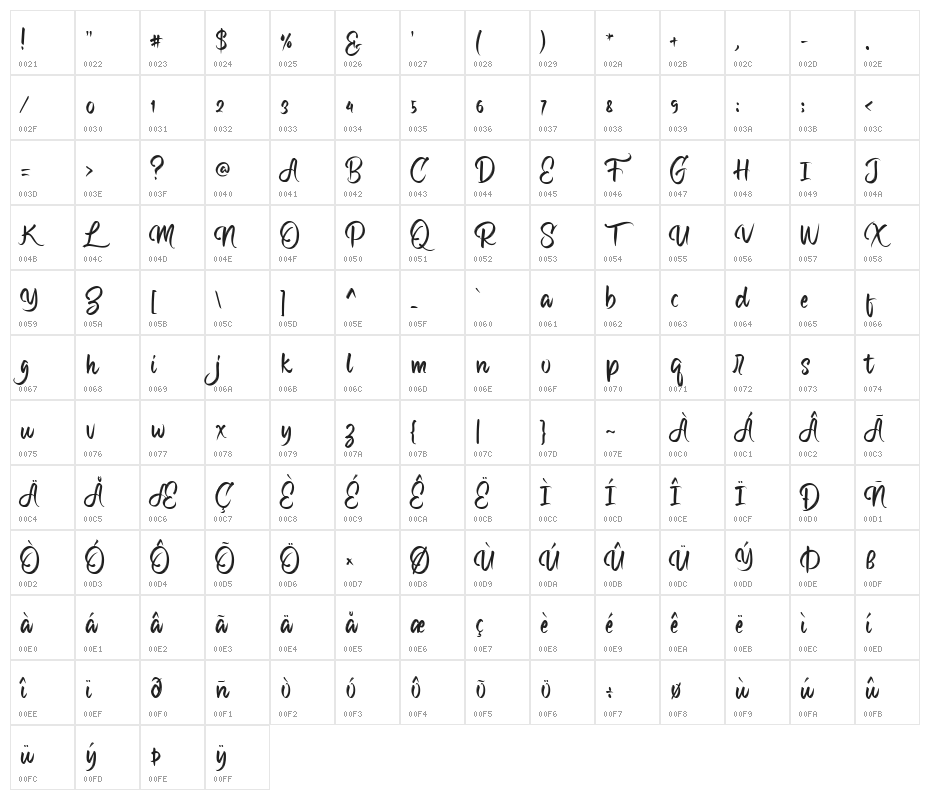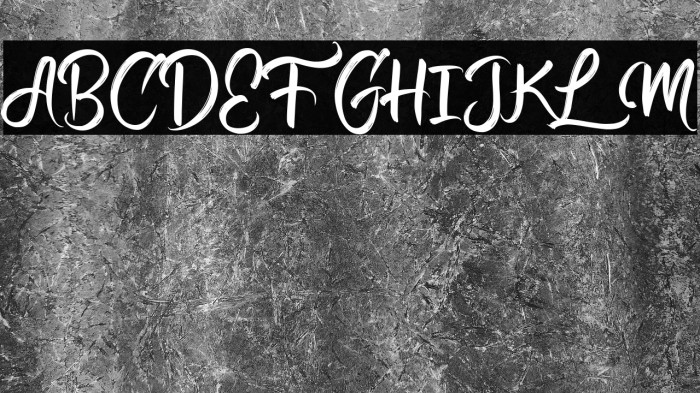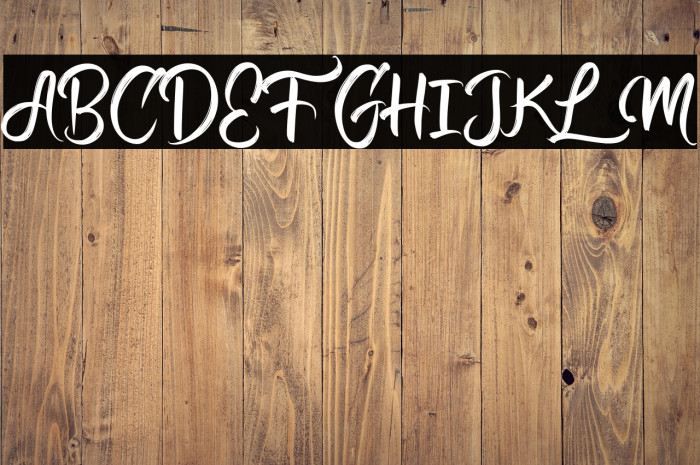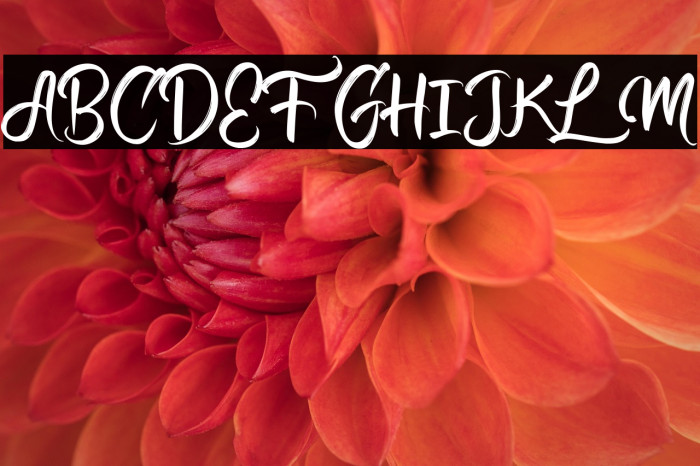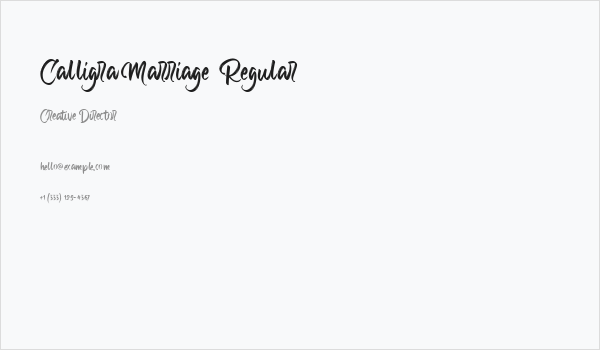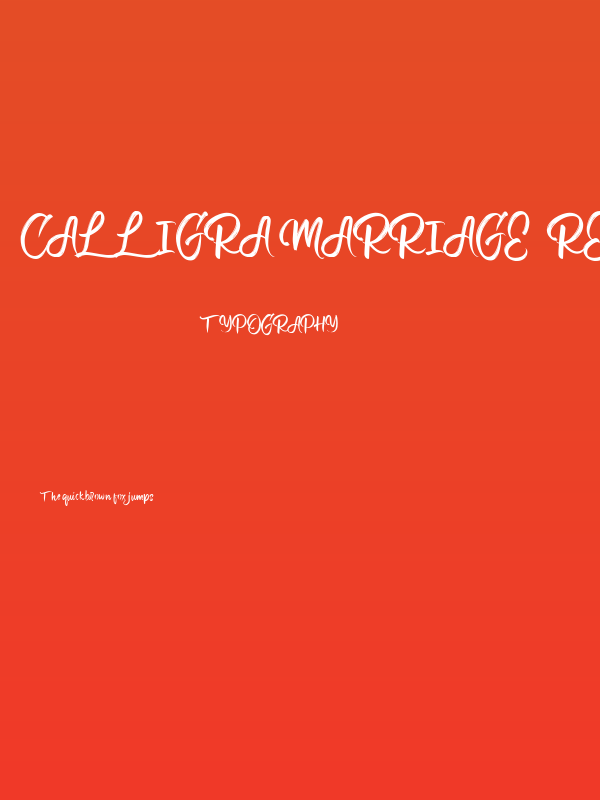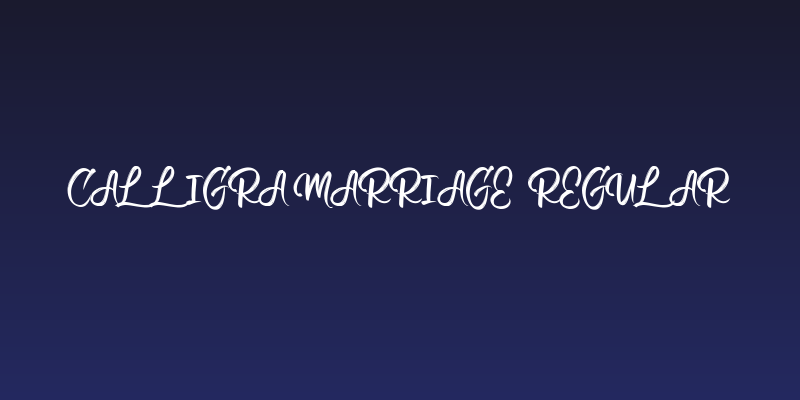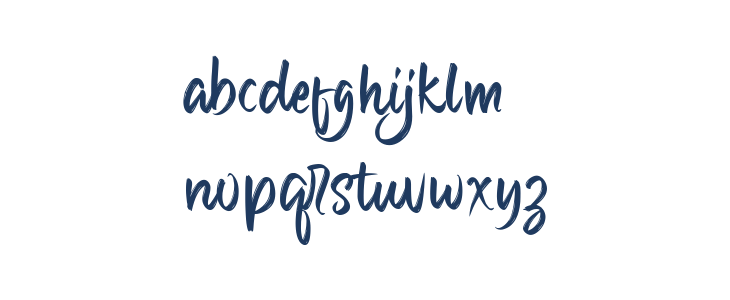
Calligra Marriage Regular Font
Calligra Marriage Regular Description
This font exudes a sense of elegance and sophistication with its flowing, cursive style. The characters are designed with a calligraphic flair, featuring smooth curves and graceful loops that give it a handwritten appearance. The uppercase letters are bold and prominent, while the lowercase letters maintain a consistent flow, making it ideal for creative and artistic projects. The numbers and special characters are crafted to match the overall aesthetic, ensuring a cohesive look across all text elements. This font is perfect for adding a personal touch to invitations, greeting cards, and other decorative designs.
| Proposed Projects | Ideal for wedding invitations, greeting cards, branding, and decorative projects. |